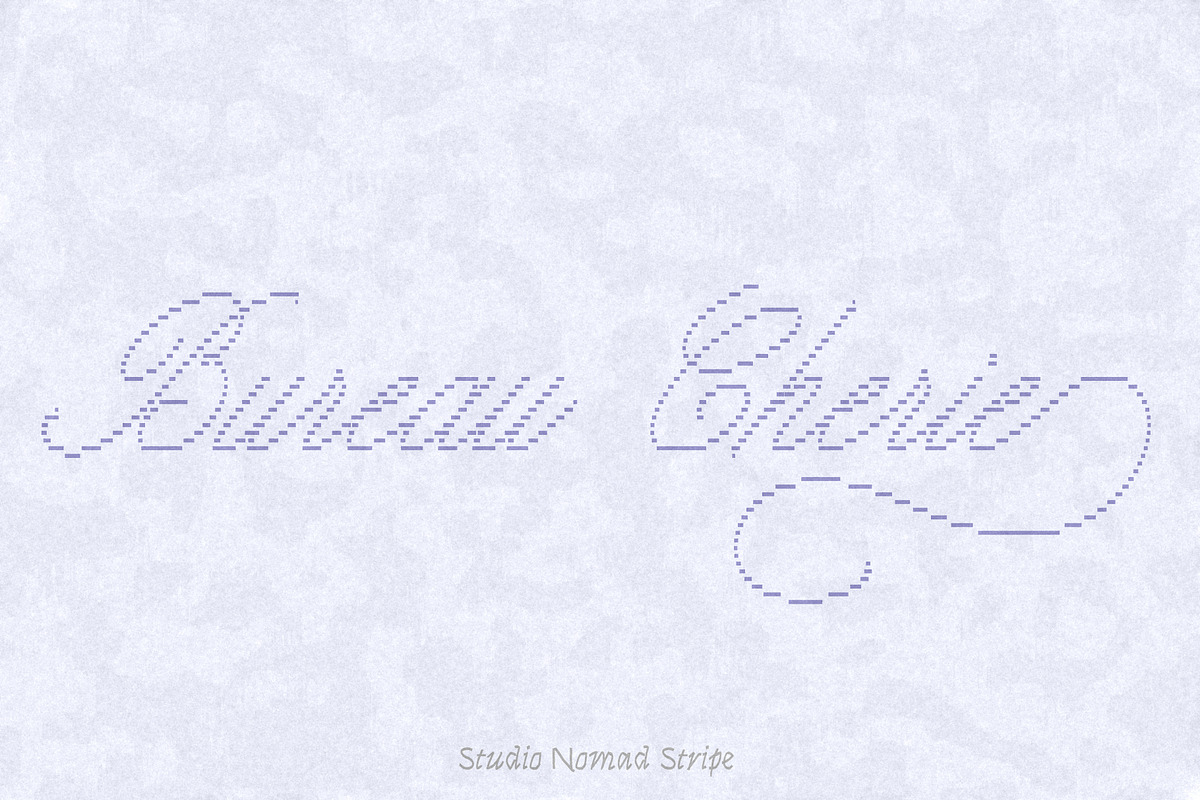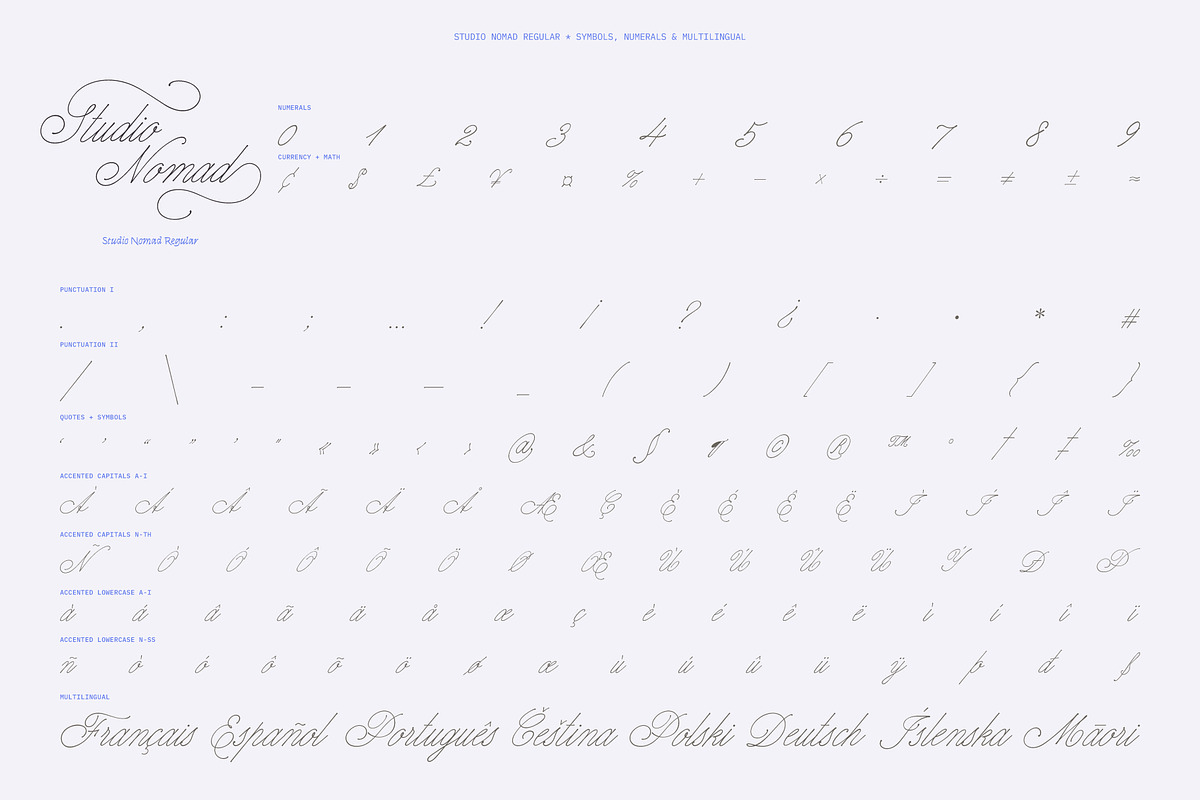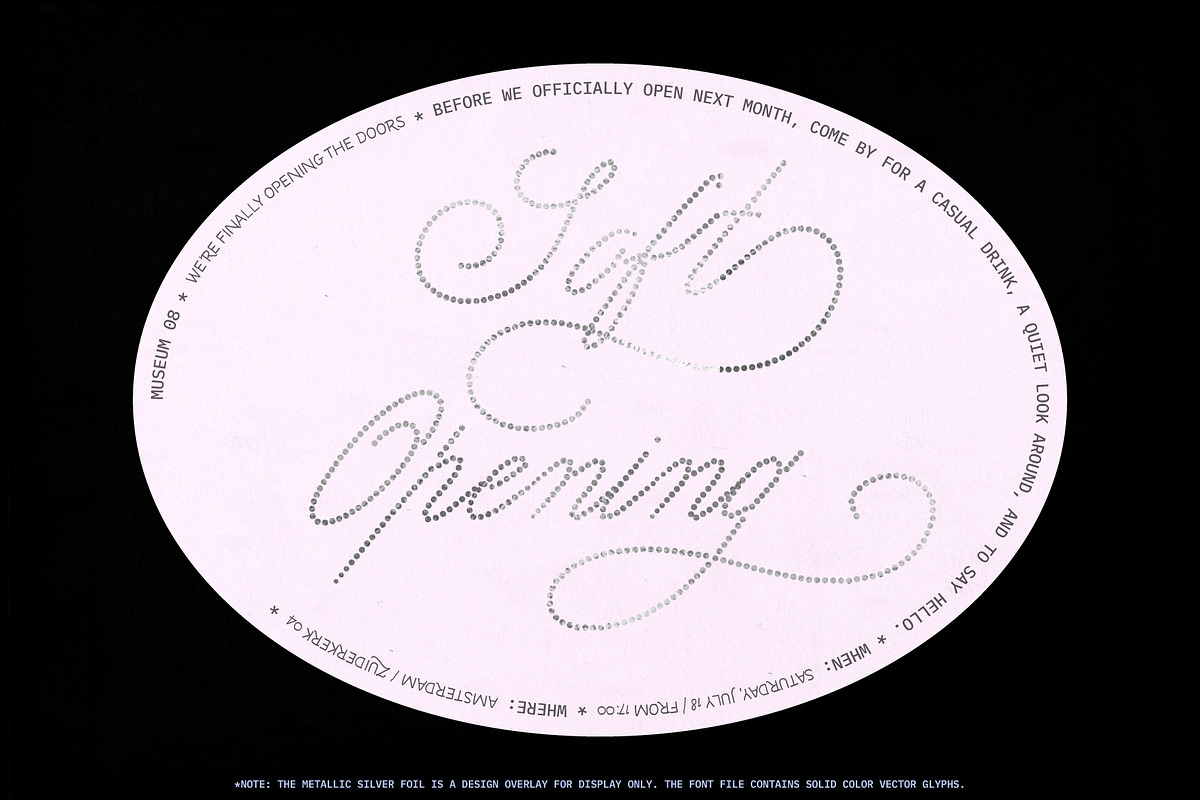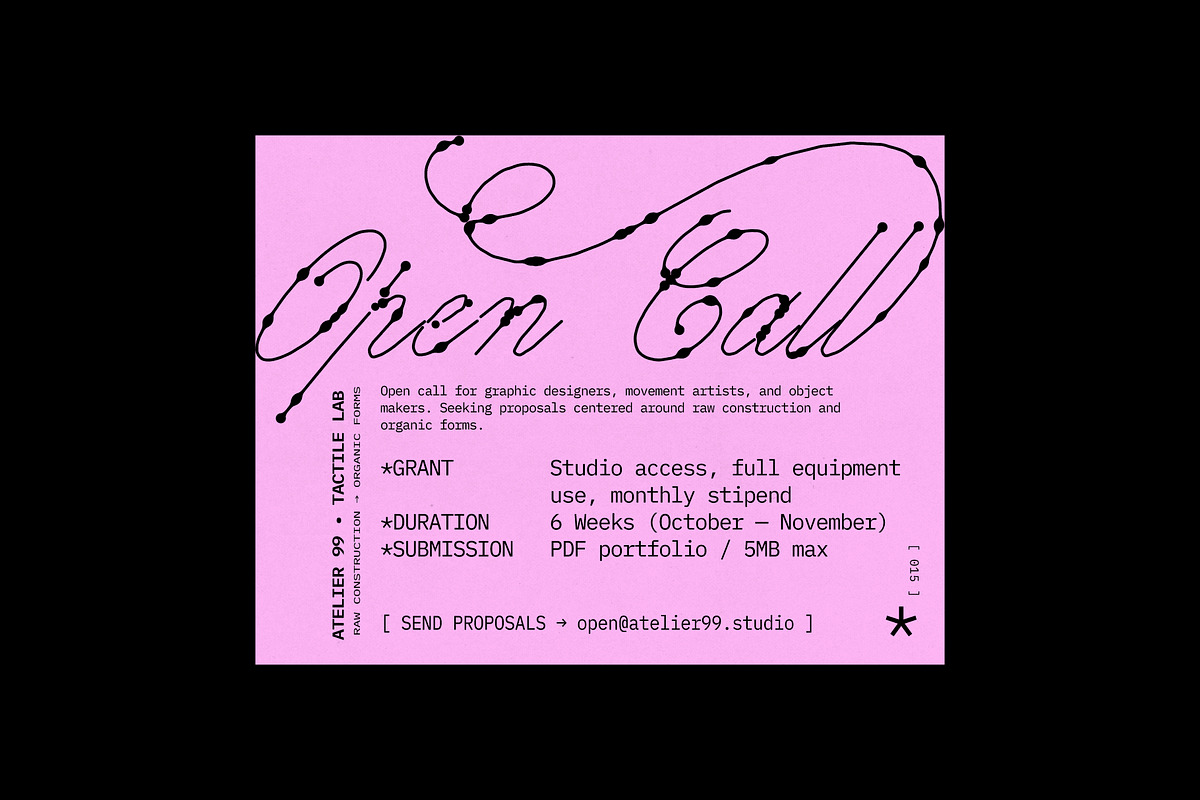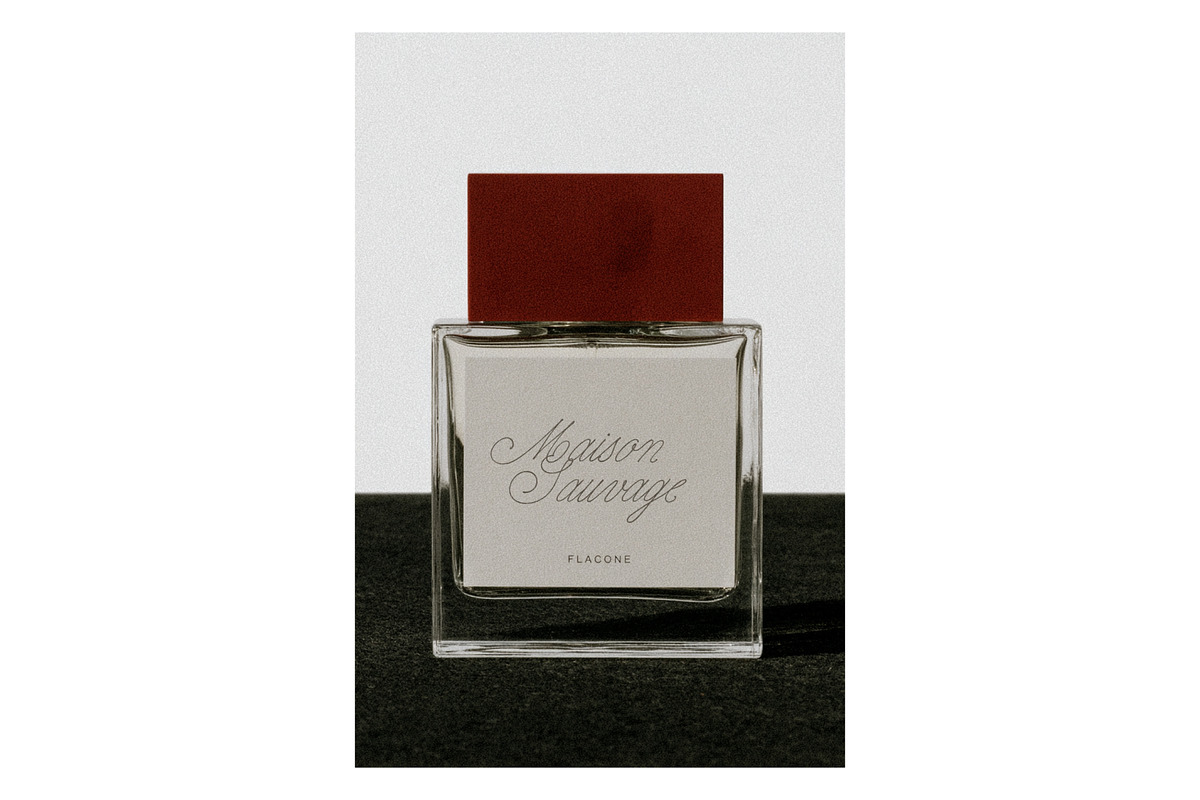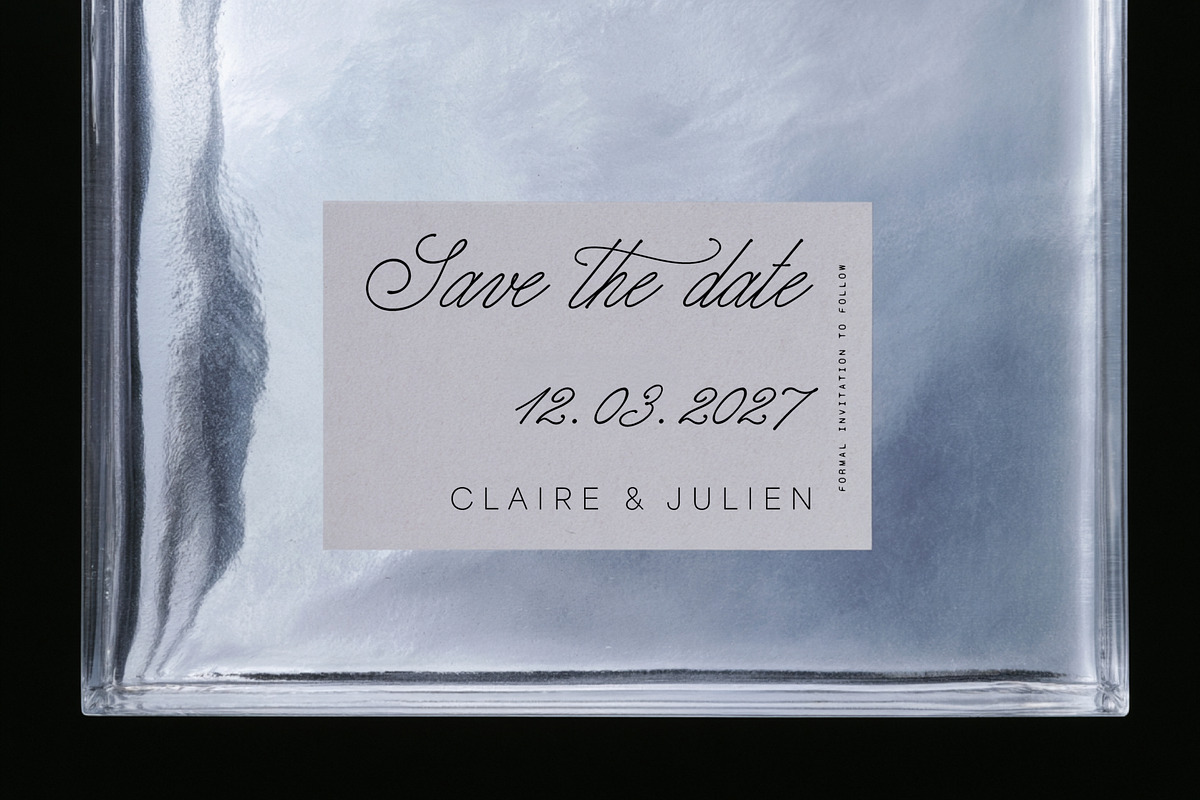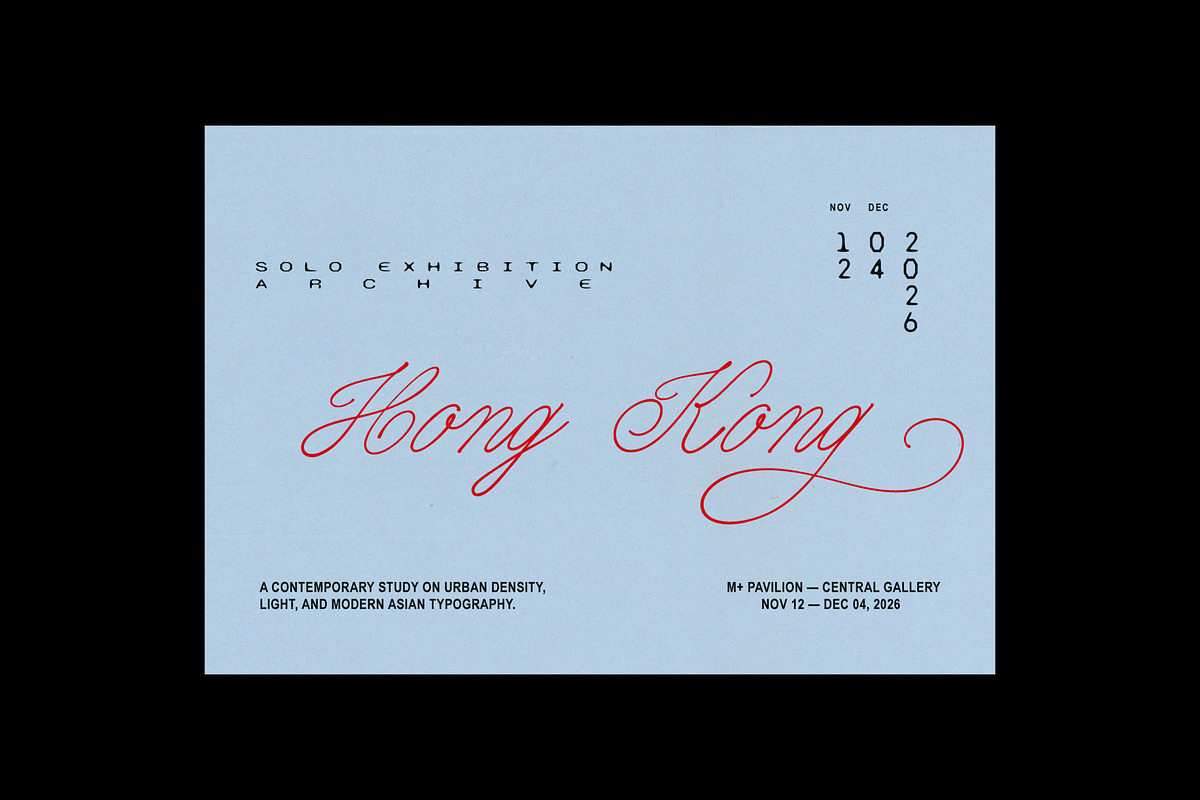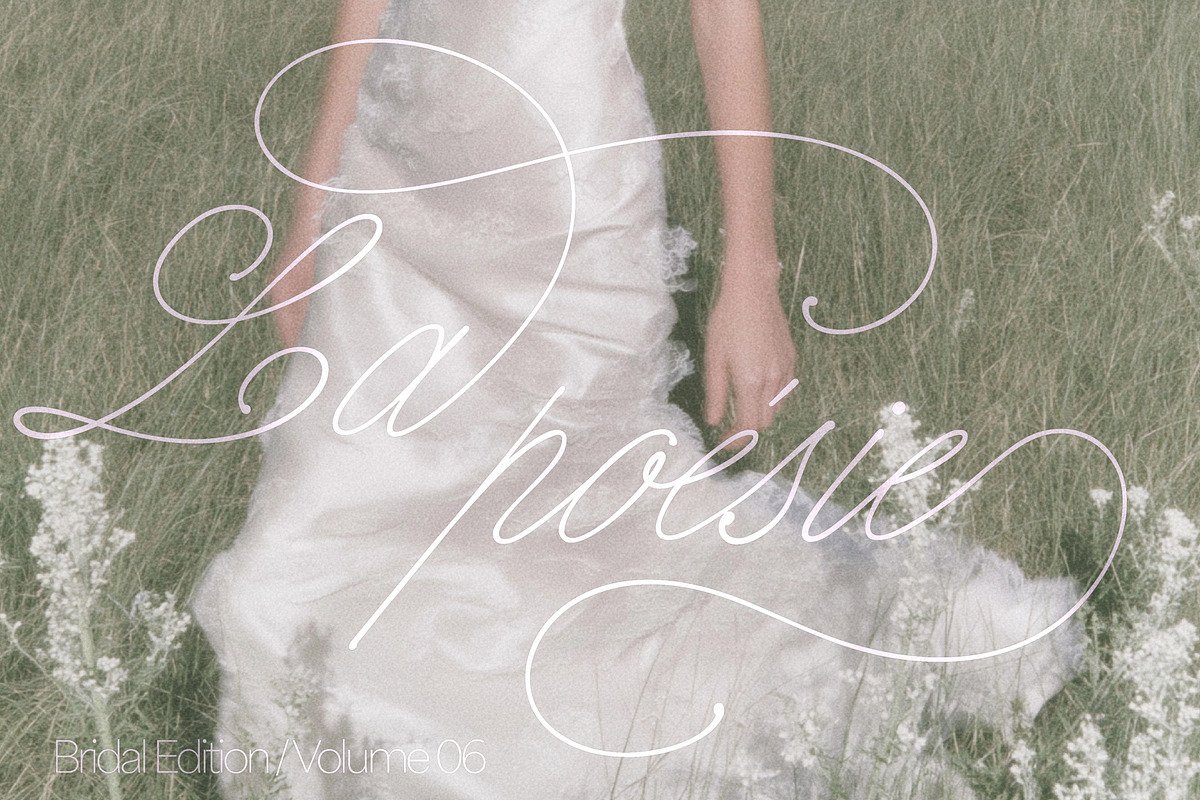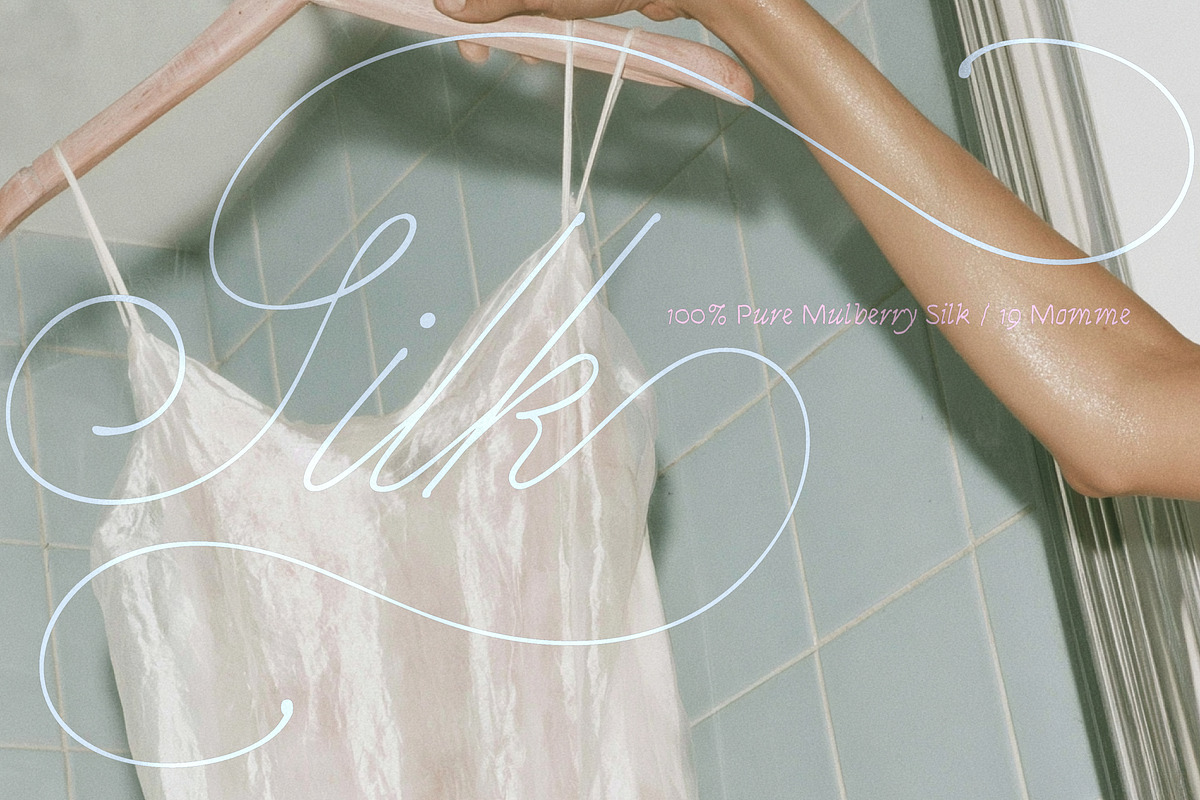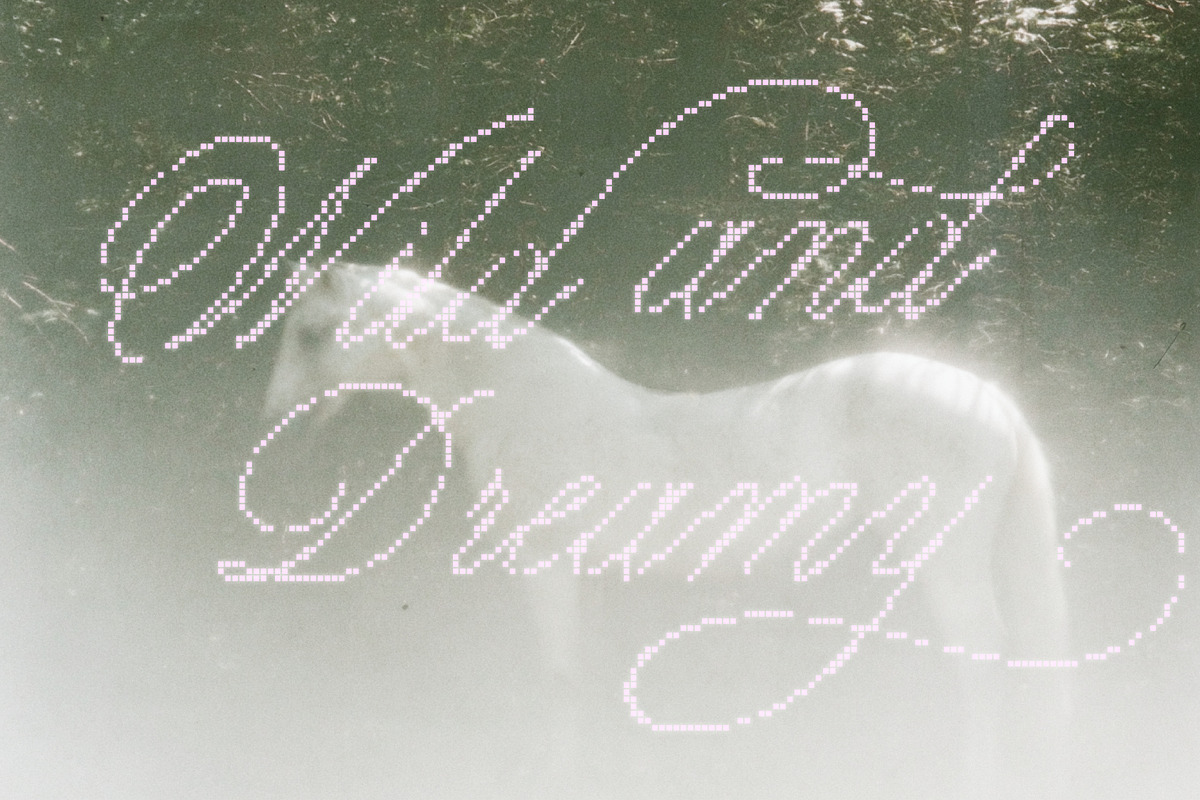
Studio Nomad // Script Family
Studio Nomad is a font family that took a very long time to develop. It began as a personal search for a fresh, modern alternative to traditional calligraphy. I wanted to step away from classic copperplate or Spencerian styles—specifically moving away from heavy thick-to-thin contrast—and instead capture the effortless feel of gel ink. Not a literal, heavy gel ink bleed, but a clean, monoline-adjacent script with a contemporary structure.
The family is split into two distinct parts: The Essentials (clean, foundational styles) and The Experimental Set (line-texture and grid-based explorations).
A Note on the Experimental Styles
In the experimental set (Star, Pixel, Stitch, etc.), the strokes are constructed from individual geometric units and micro-patterns.
Technical Disclosure on Character Overlaps:
Please note that in styles like Studio Nomad Star, where swashes and letter connections overlap, the pattern elements (such as the star shapes) will naturally overlap as well.
In a standard solid vector font, these overlapping paths are invisible because black vector shapes merge seamlessly into black. However, in a structured, shape-based font, these overlapping joins remain visible.
Studio Nomad Regular — The core, refined gel-ink script.
Studio Nomad Bold — A weightier version for display headlines.
Studio Nomad Thin — Delicate, razor-sharp monoline layout style.
Studio Nomad Rough — Subtle, organic edge texture.
Studio Nomad Ink — Tapered nodes with subtle ink-pooling at the joints.
Studio Nomad Pixel — Medium-density pixel matrix construction.
Studio Nomad Small Pixel — Fine, micro-pixelated stroke structure.
Studio Nomad Dot Taper — Tapered, dotted stroke paths.
Studio Nomad Star — Strokes built entirely from micro-star vector paths.
Studio Nomad Stitch — Segmented, dash-stitched line construction.
Studio Nomad Stripe — Parallel linear-cut stroke textures.